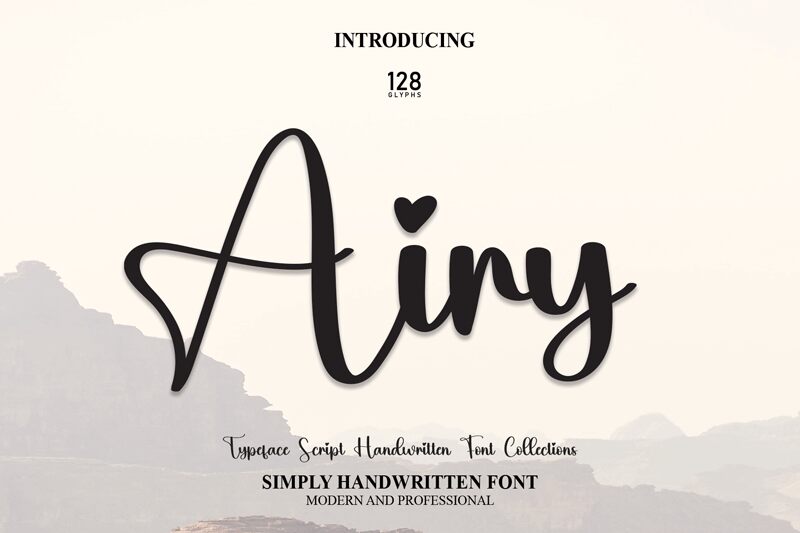
Airy
Airy, a delightful creation by Scratchones, is a charming and whimsical font that effortlessly captures the essence of cuteness in its handwritten style. With its playful curves and gentle strokes, Airy adds a touch of innocence to any project it graces.
Perfect for children's books, greeting cards, or even branding for whimsical products, this cute handwritten font brings an air of joy and warmth to every design.
Let Airy be the magical touch that enchants your projects and leaves a lasting impression on your audience.